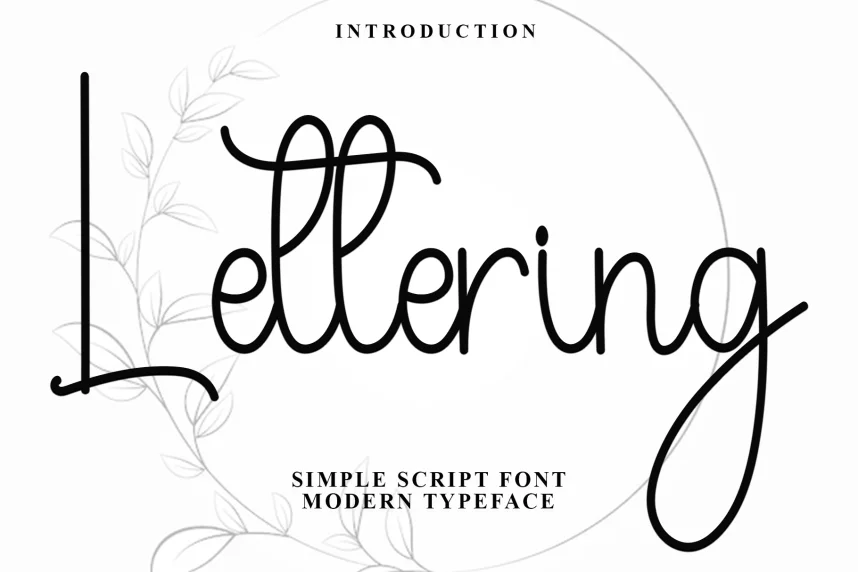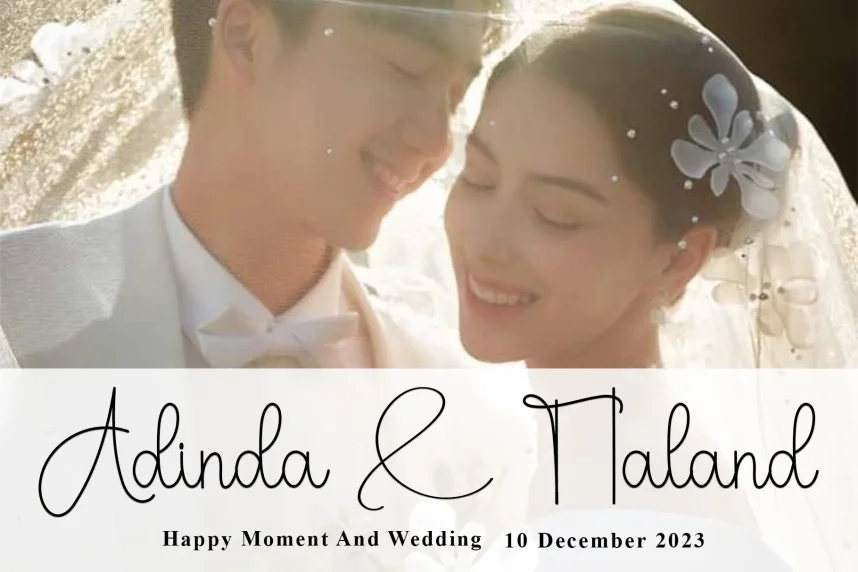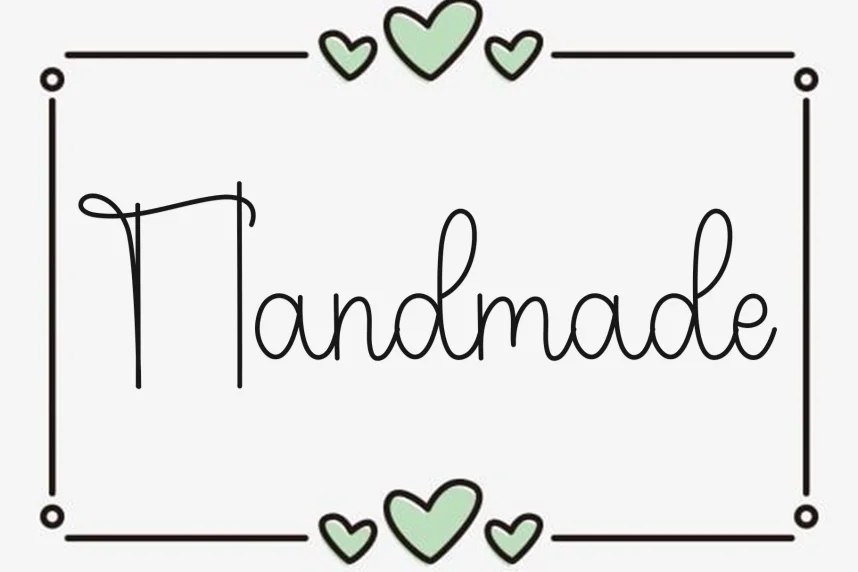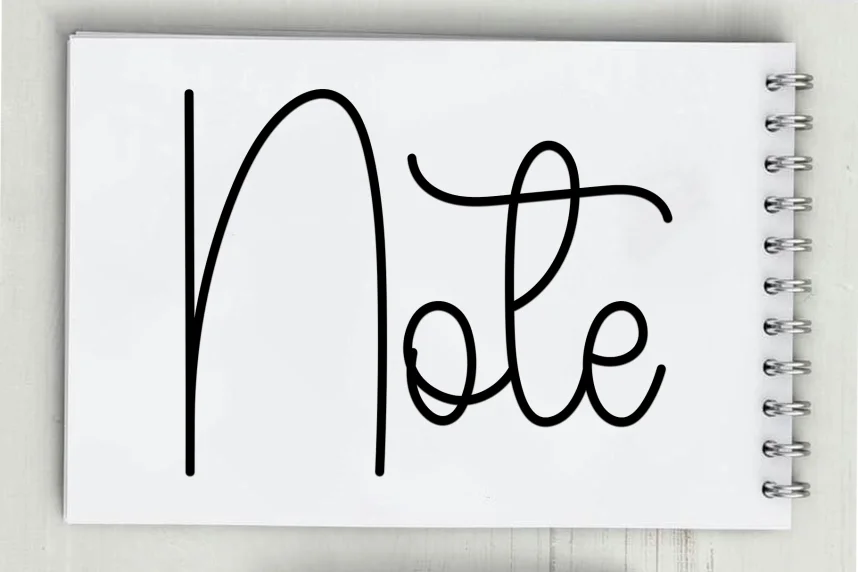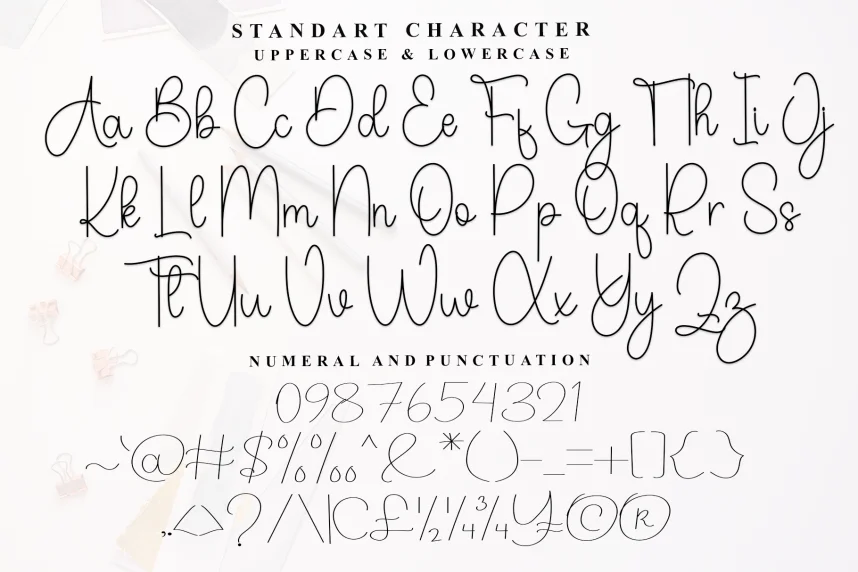
Lettering Simple Script Font addresses the need for a clean, elegant handwritten font that remains easy to read in both formal and casual designs. Designers often choose it for personal projects requiring a light, sophisticated touch.
Lettering Simple is a script font with smooth, flowing curves and consistent stroke weight. Its clean, minimal design helps it maintain legibility, making it suitable for short texts or decorative use.